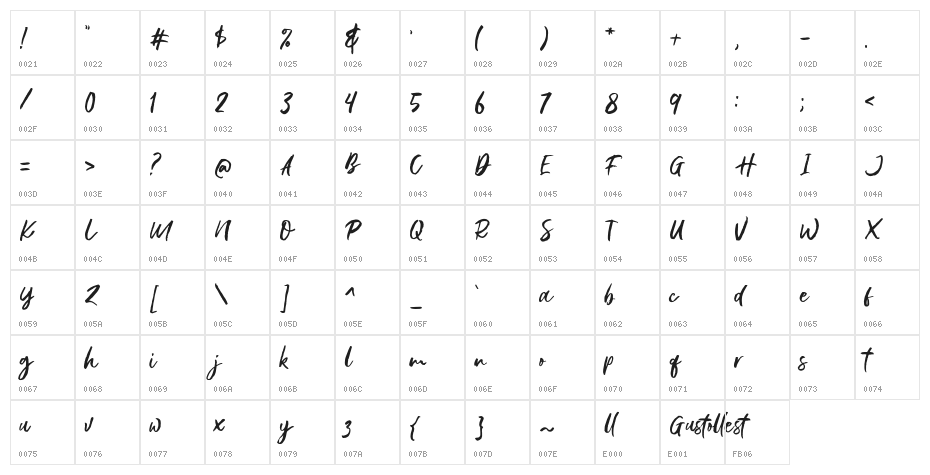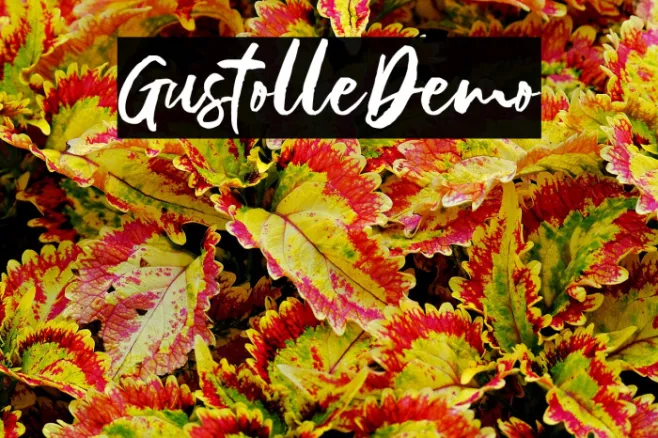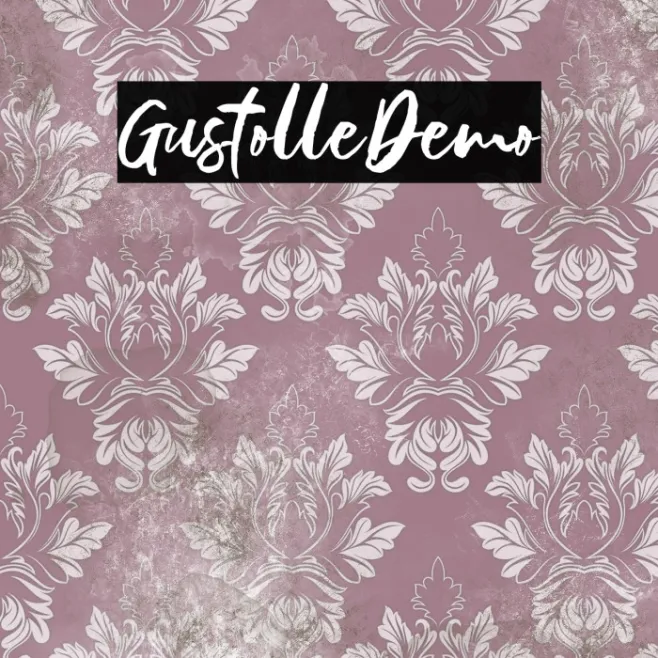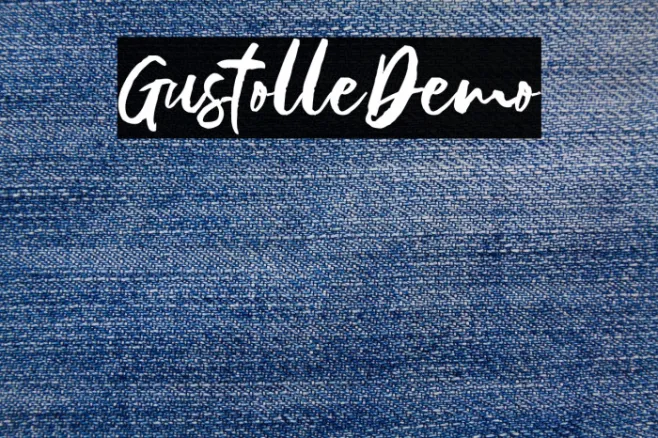
GustolleDemo Font
GustolleDemo Description
This font exudes a lively and dynamic handwritten style, characterized by its bold, brush-like strokes that convey a sense of energy and movement. The letters are crafted with a natural flow, mimicking the organic imperfections of hand-drawn script. Each character maintains a consistent thickness, giving the font a cohesive look while allowing for slight variations that enhance its authenticity. The uppercase letters are bold and prominent, while the lowercase letters maintain a playful yet elegant appearance. Numbers and special characters are designed with the same attention to detail, ensuring uniformity across all elements. This font is perfect for projects that require a personal touch, such as invitations, greeting cards, or branding materials that aim to convey creativity and warmth.
| Proposed Projects | Ideal for invitations, greeting cards, branding, and creative projects requiring a personal touch. |